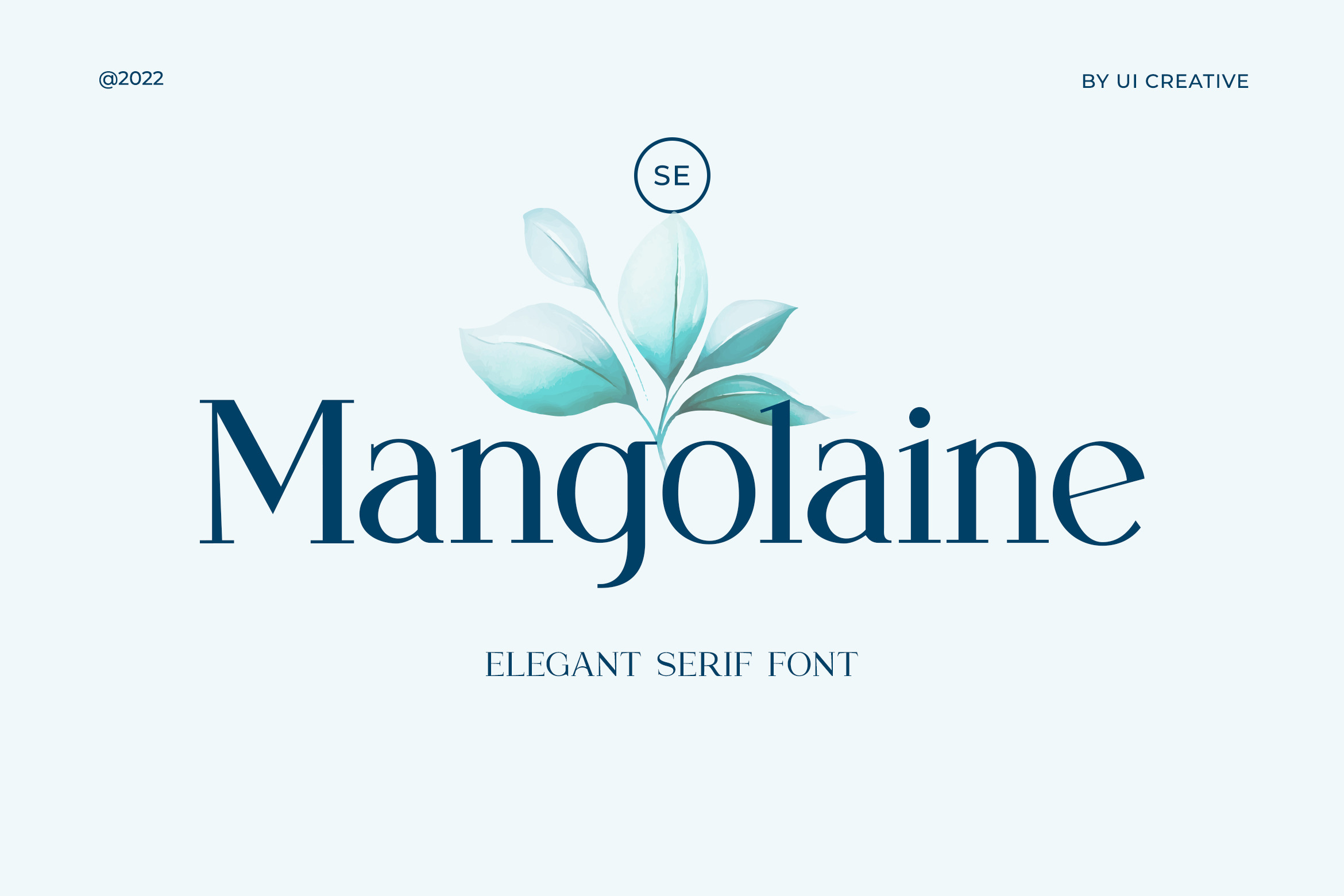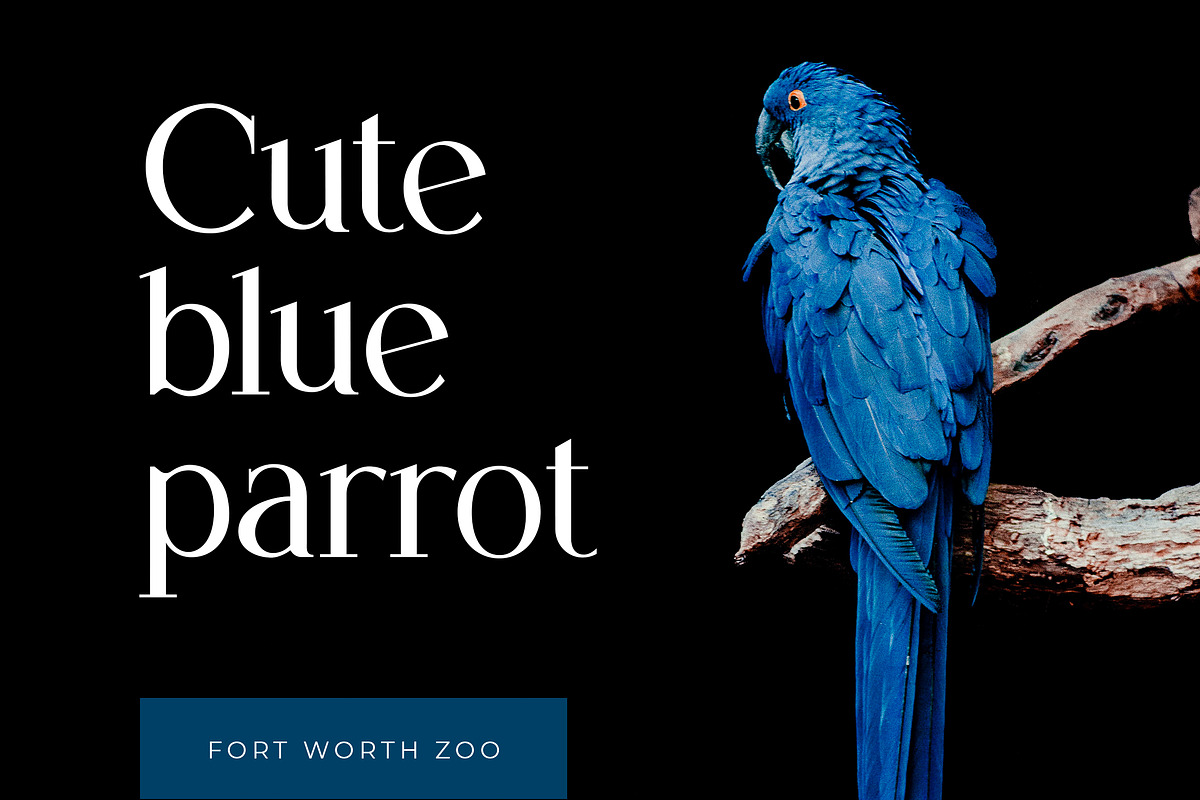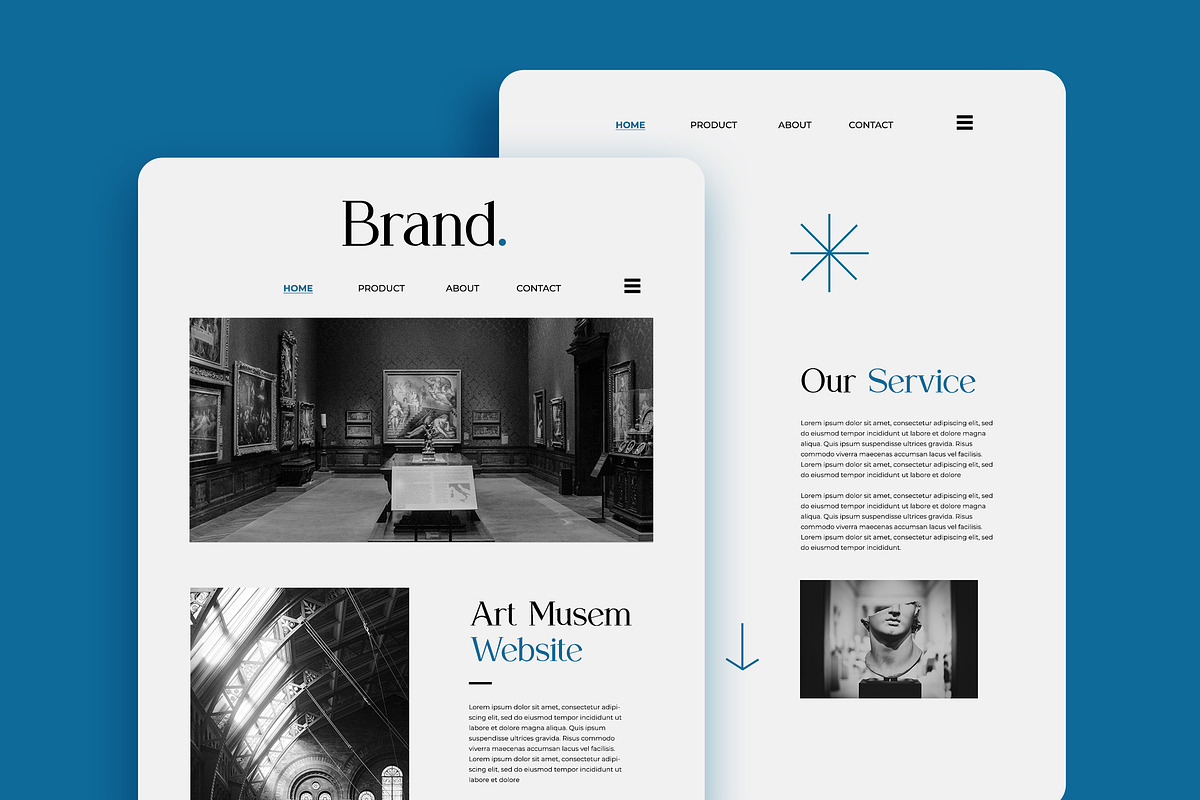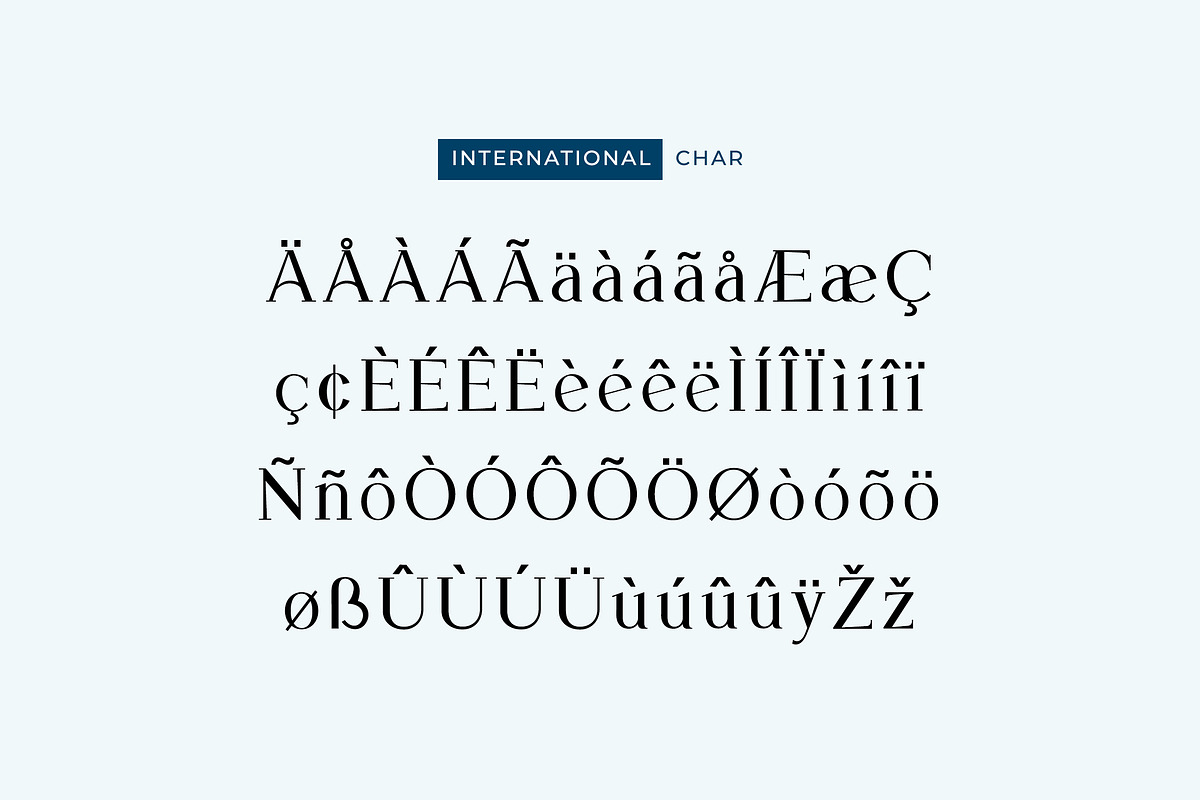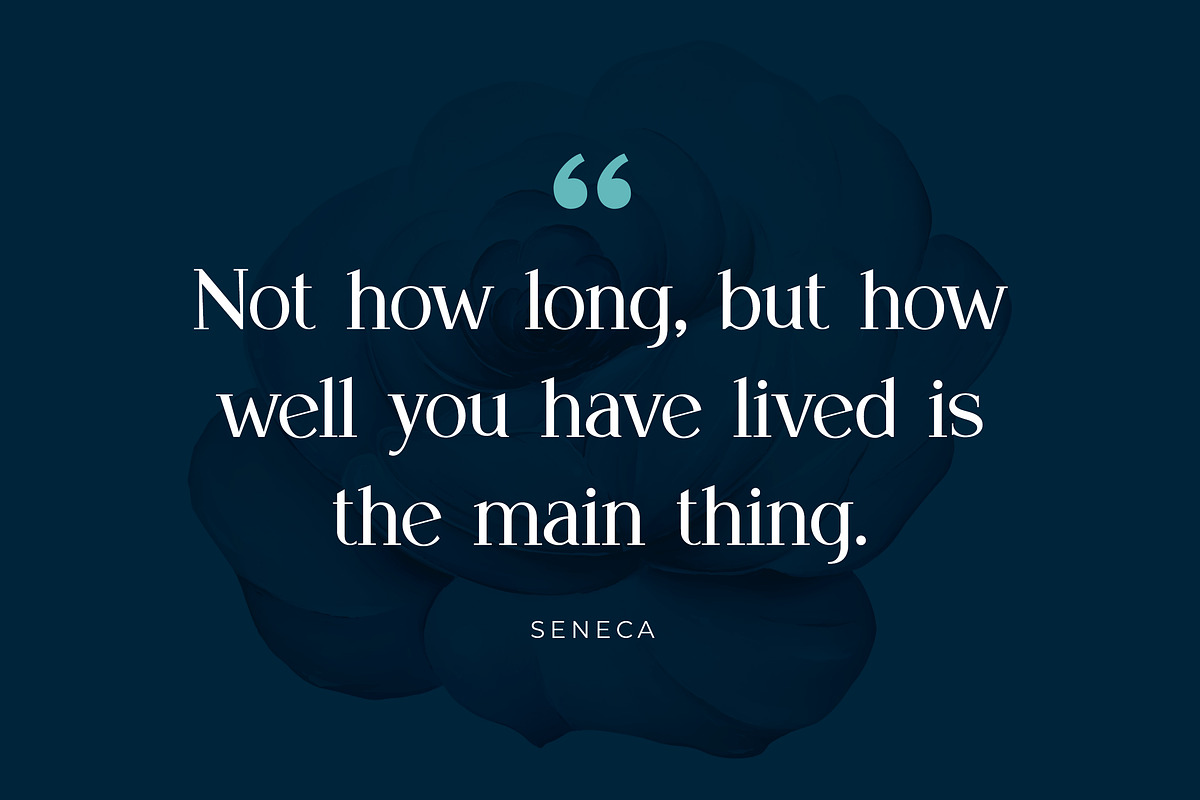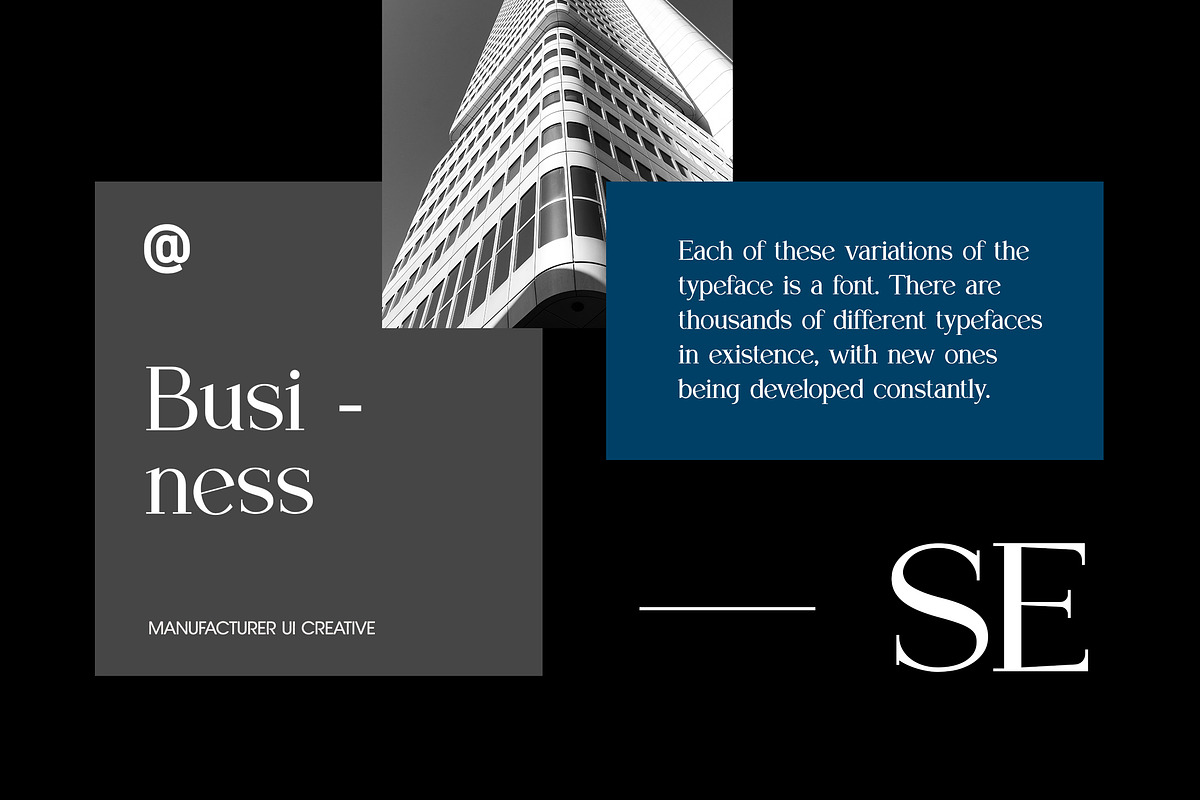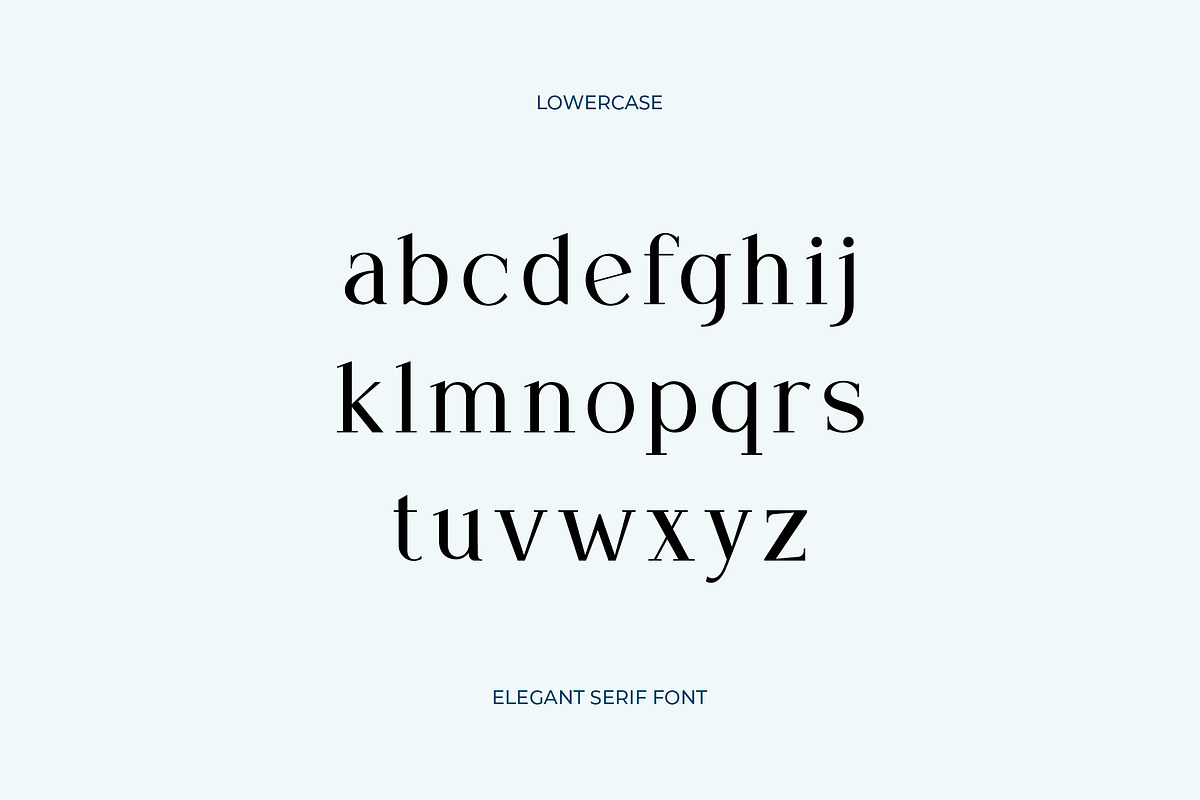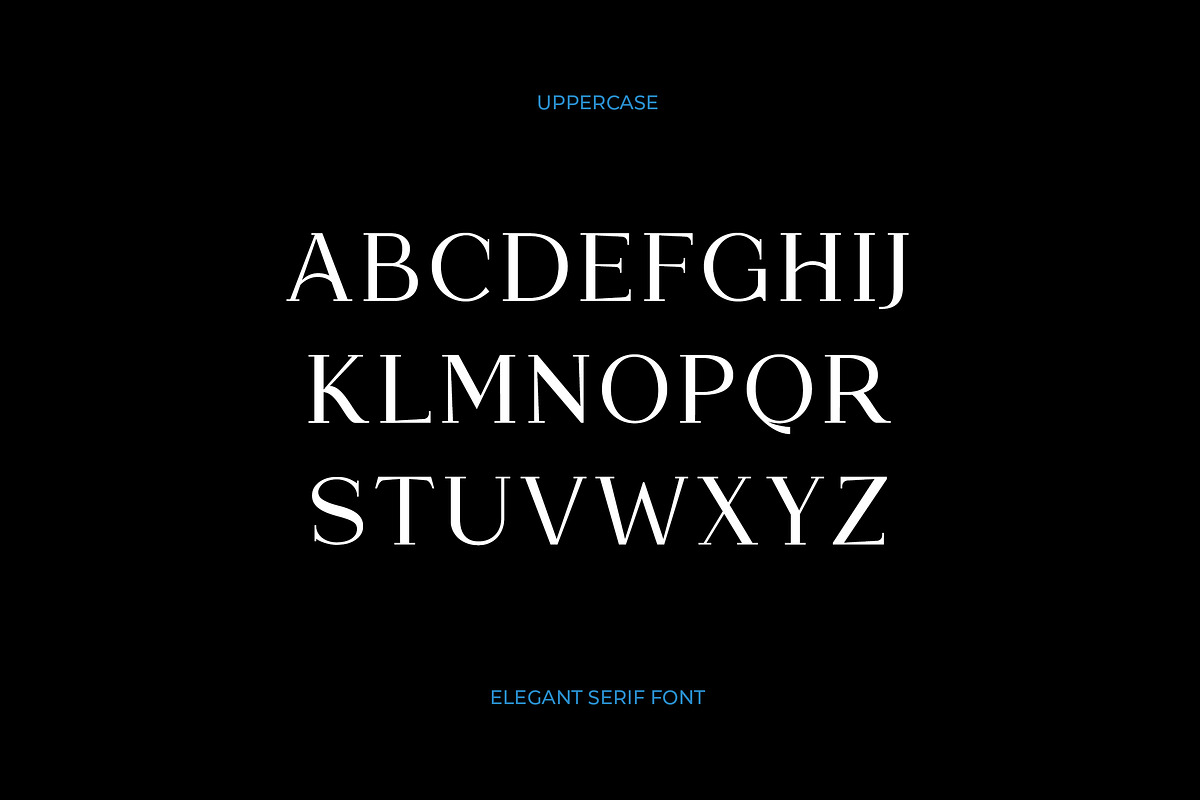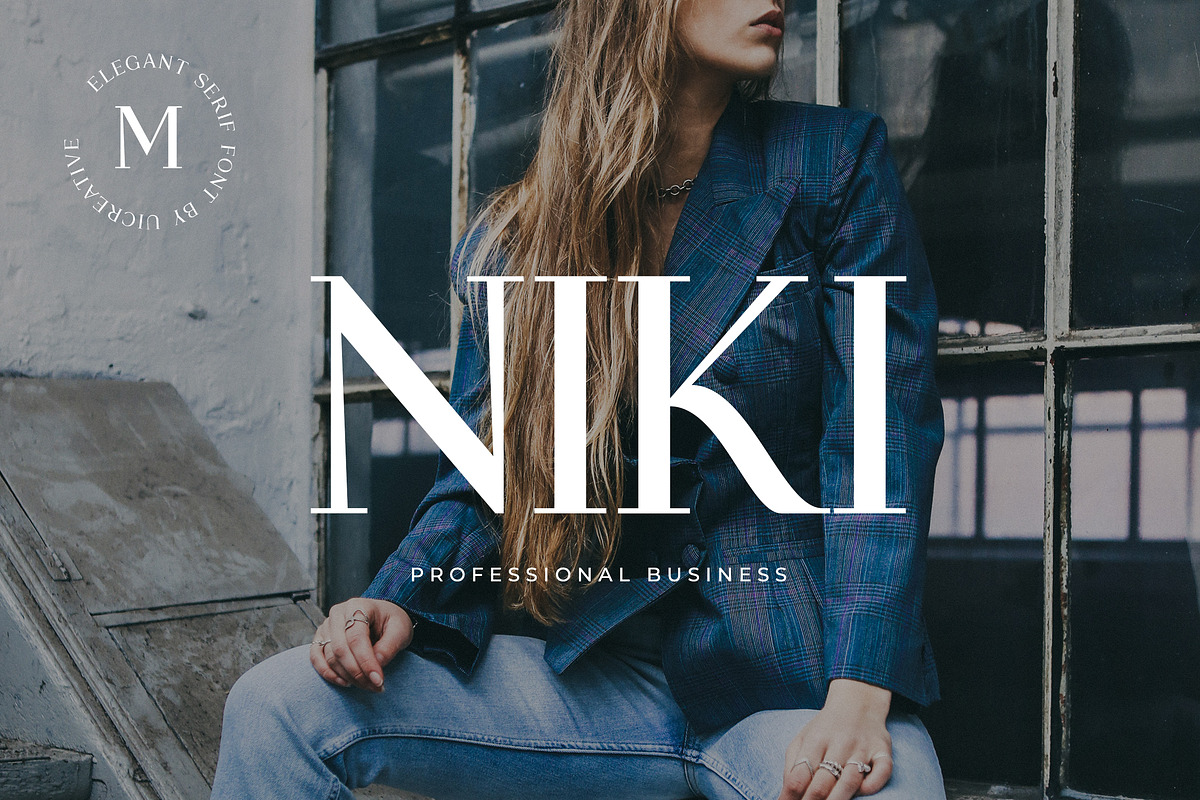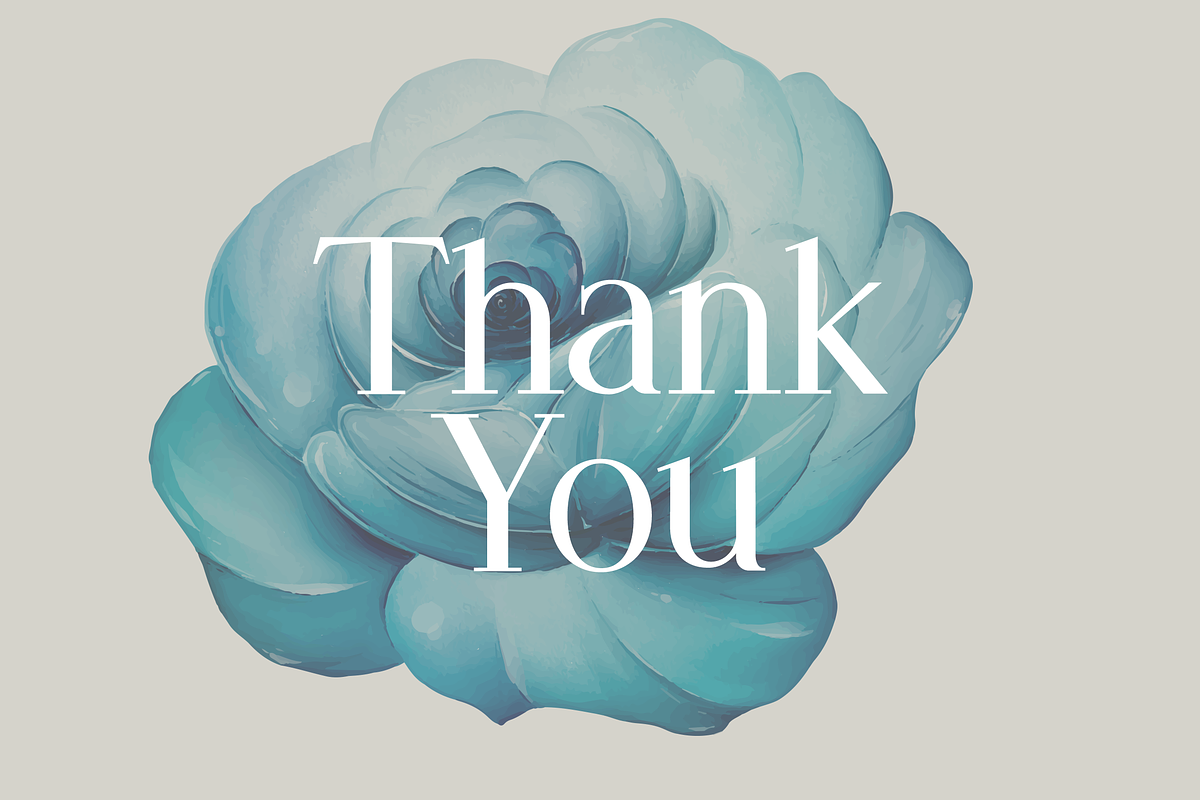
Mangolaine Elegant Serif Font
Introducing our new product the name is Mangolaine Elegant Serif Font. Modern Serif font that feels beautiful classy, elegant, and modern. This font is ideally suited for a wide variety of projects, such as signature, stationery, logo, wedding, typography quotes, magazine or book covers, website headers, clothing, branding, packaging design, and more. Also, fashion-related branding or editorial design displays both masculine and feminine qualities.